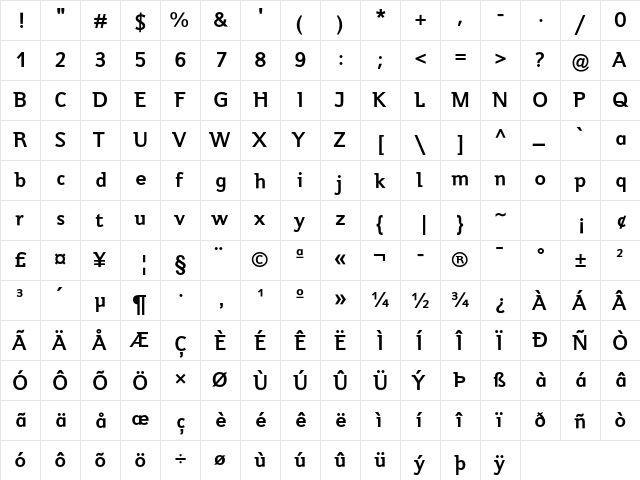
Jeunesse Std Bold
Design Context for Jeunesse Std Typeface
Jeunesse Std takes a measured approach to typography — its balanced proportions and neutral character make it a reliable workhorse for both digital and print work. The heavy weight commands attention and anchors typographic hierarchies.